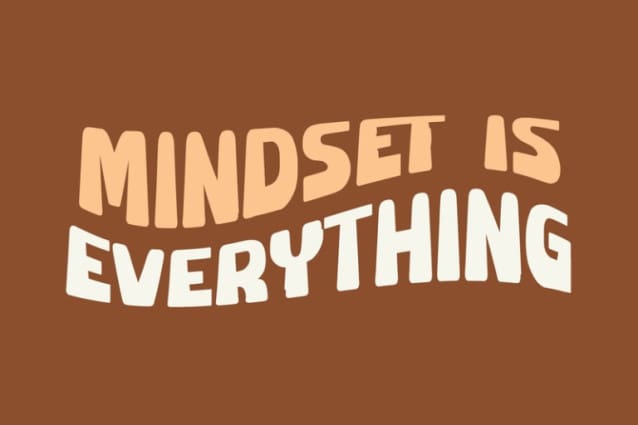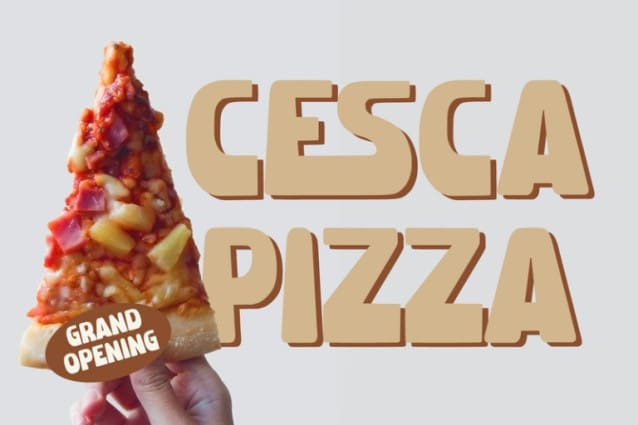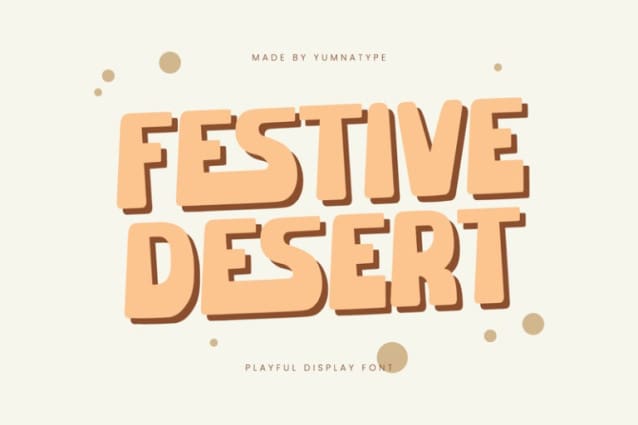
Festive Desert Font
Festive Desert Font, a delectable display font that brings a playful twist to any project. Each letter of Festive Dessert is infused with charm and character, featuring rounded shapes that evoke the cozy feeling of homemade treats. The thick weight of the font adds to its bold presence, ensuring that your message stands out with confidence and clarity. With its low contrast, Festive Desert maintains a harmonious balance between the thick strokes and rounded forms, creating a cohesive and inviting appearance.